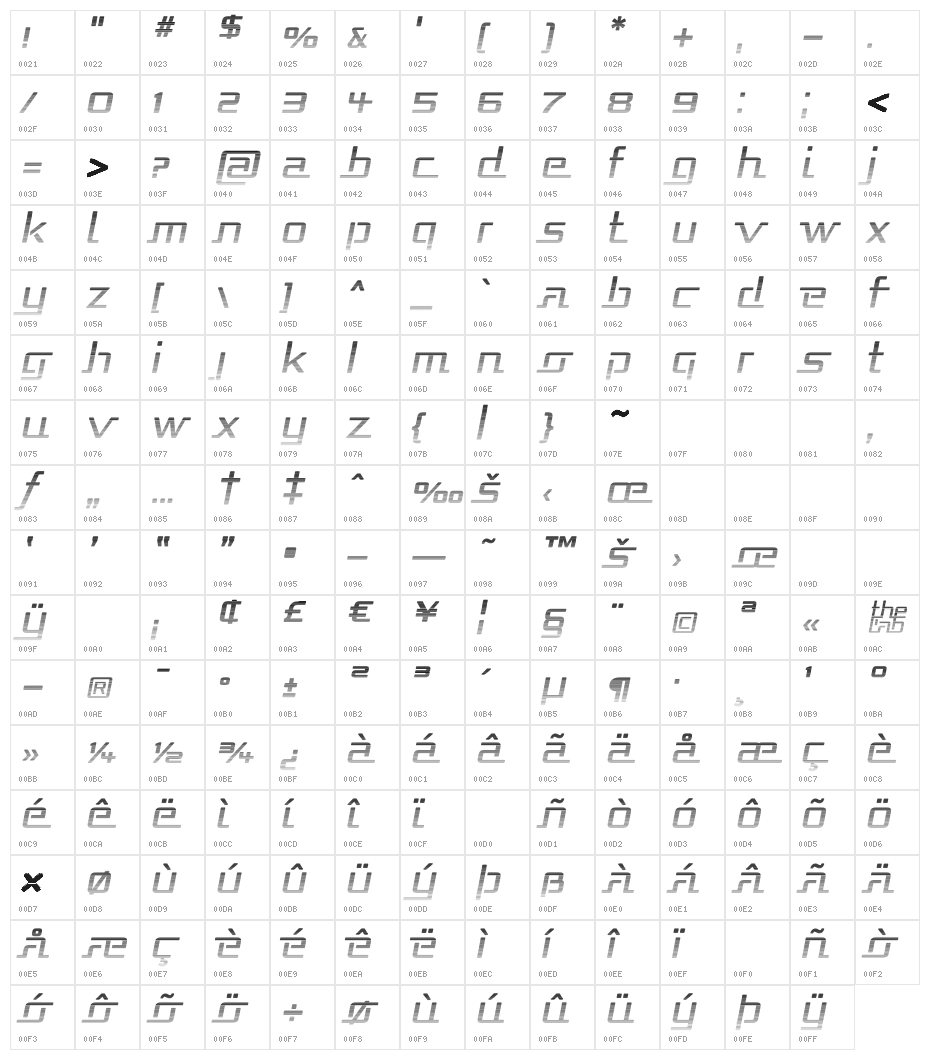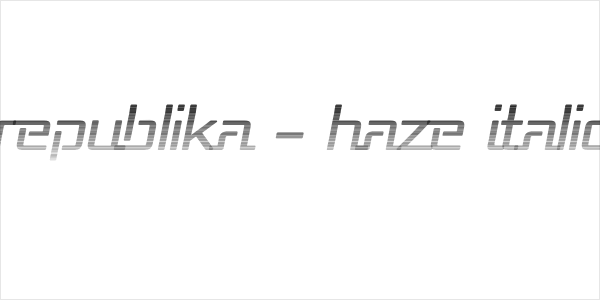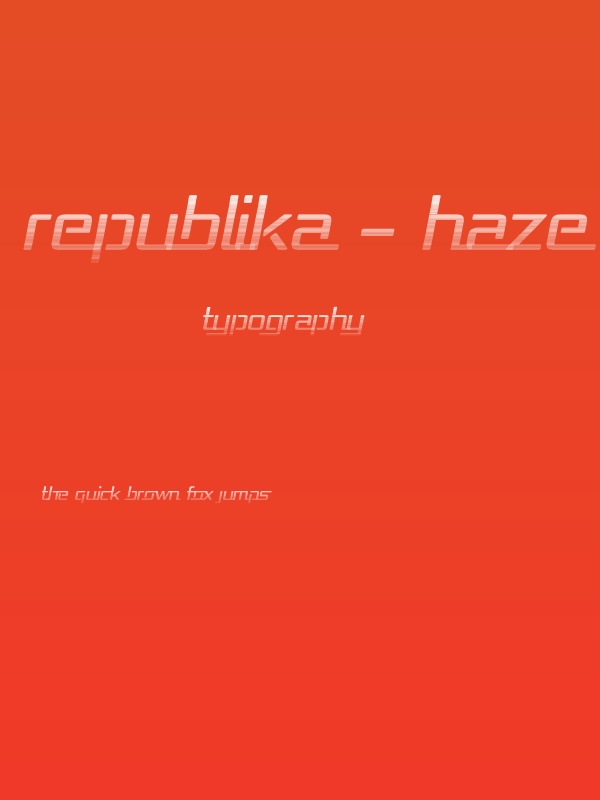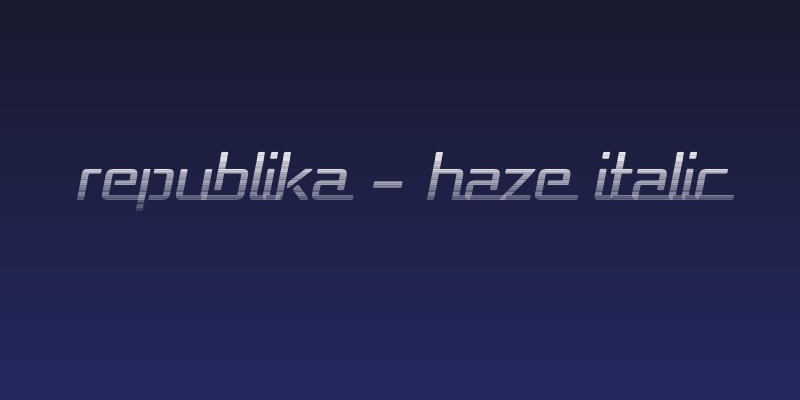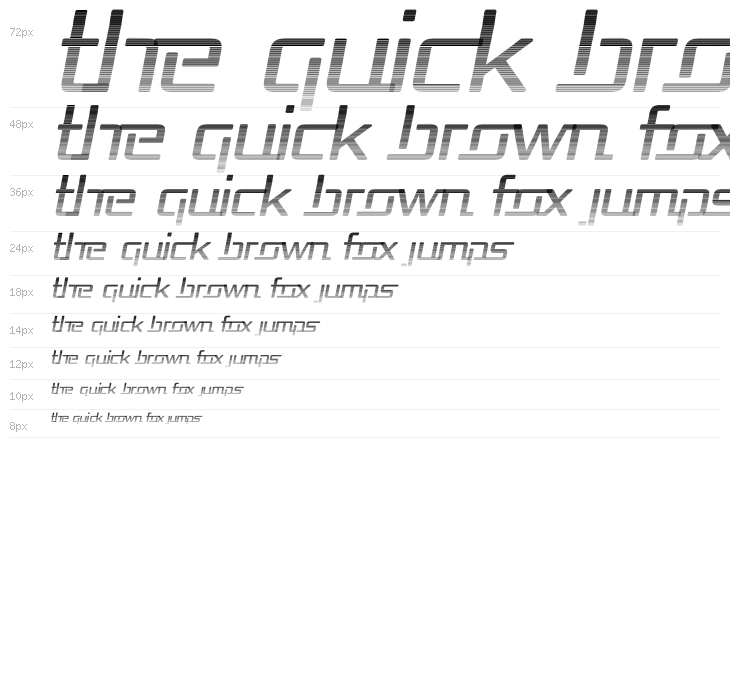
Republika - Haze Italic Font
Republika - Haze Italic Description
This font features a futuristic and dynamic style with a distinct italic slant, giving it a sense of motion and speed. The characters are designed with a modern, geometric structure, incorporating sharp angles and clean lines. The font exhibits a unique gradient effect within each character, adding depth and a digital aesthetic. It is well-suited for projects that require a contemporary and tech-savvy appearance. The uppercase and lowercase letters maintain consistent design elements, ensuring a cohesive look across different text sizes. The numerals and special characters are crafted with the same attention to detail, making this font versatile for various applications.
| Proposed Projects | Ideal for technology branding, video game titles, sci-fi posters, and digital media. |